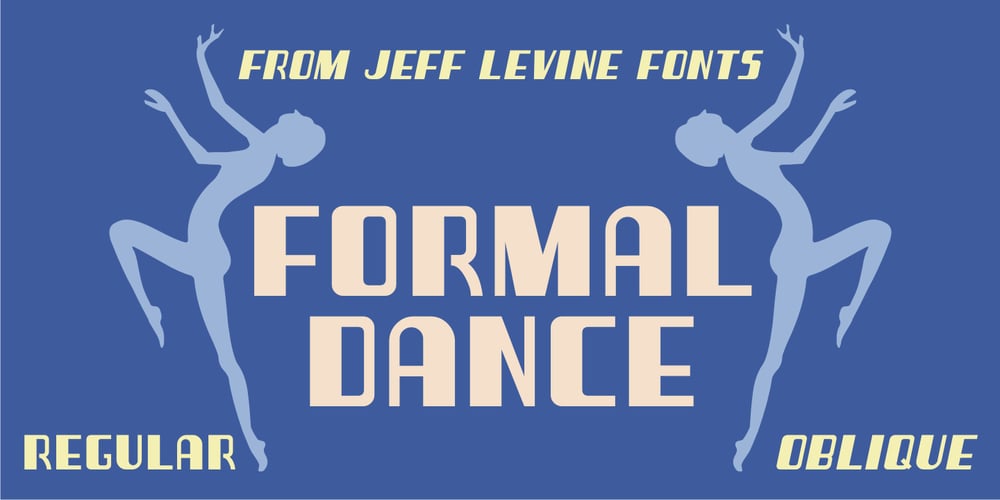
Formal Dance JNL Font Family was designed by Jeff Levine and published by Jeff Levine. Formal Dance JNL contains 2 styles and family package options. A vintage Canadian-published music book circa the 1940s had the title “Strauss Waltzes” hand lettered in a bold Art Deco sans serif that featured block style letters with rounded corners. This was the working model for Formal Dance JNL, which is available in both regular and oblique versions.